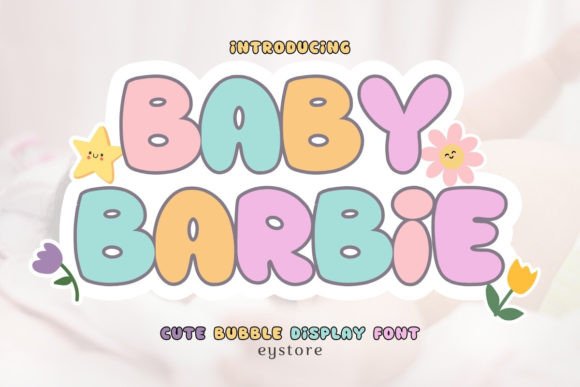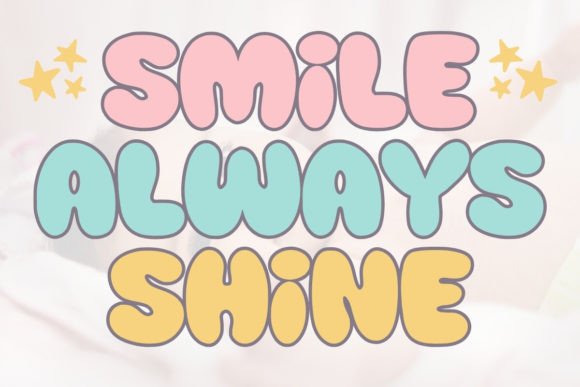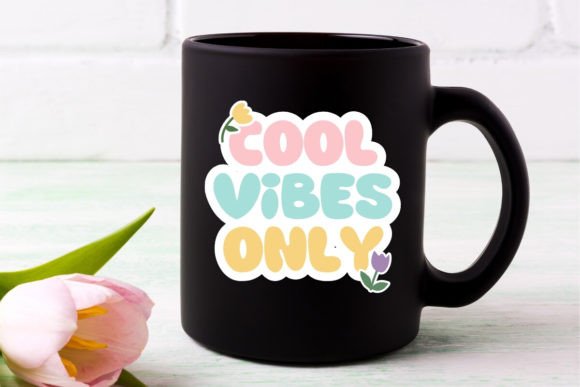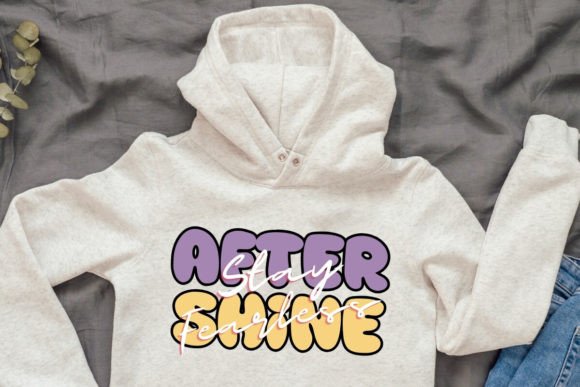
Baby Barbie Font: A Cute Display Font for Playful Designs
About the Baby Barbie Font
Meet Baby Barbie Font, a stunning font that brings a touch of elegance and professionalism to any design. Baby Barbie is a cute and unique bubble font. Ideal for all designs, It embodies playfulness and authenticity and is the perfect choice for all your favorite projects, or even for blog posts, logos, branding, advertising, invitations, greeting cards, planners, photo albums, decorations and more. Add it to your design, and enjoy the results!
Baby Barbie’s playful, rounded forms are best suited for headlines, short text blocks, and playful branding projects. It works exceptionally well on packaging for children’s products, invitations, greeting cards, and social media graphics where its youthful energy shines. However, its low x-height makes it less suitable for body text or long paragraphs; readability suffers at smaller sizes.
Consider pairing Baby Barbie with a clean sans-serif like Open Sans for a balanced contrast, or a more playful script like Pacifico for a heightened sense of whimsy. For a more sophisticated feel, a geometric sans-serif such as Montserrat could provide a modern counterpoint.
The font’s overall personality is undeniably cheerful and childlike, making it ideal for brands targeting a young, vibrant audience. Its inherent charm can be successfully leveraged in designs needing a touch of fun and approachability.
Baby Barbie Font Usage Examples
Baby Barbie Font Example